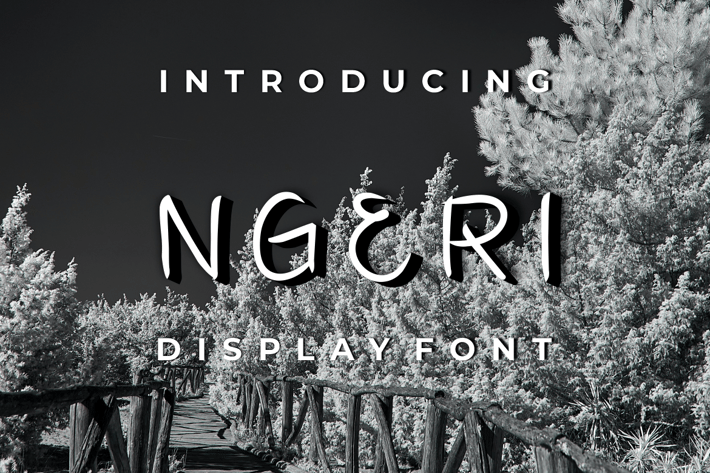
NGERI FONT
Introducing our new product NGERI FONT - Modern Font
NGERI FONT - Modern Font is a bold and authentic display font. The font is suitable for any branding project like logo, t-shirt printing, esport, and many more. outstanding in a wide range of contexts.